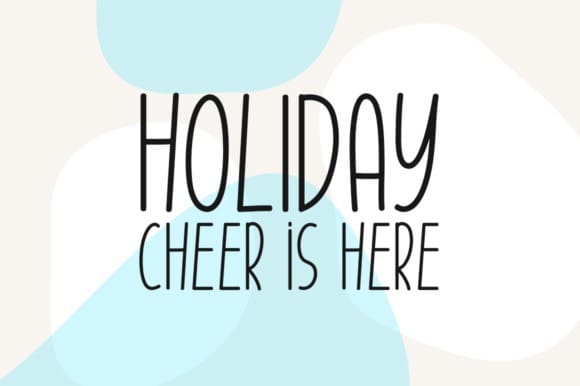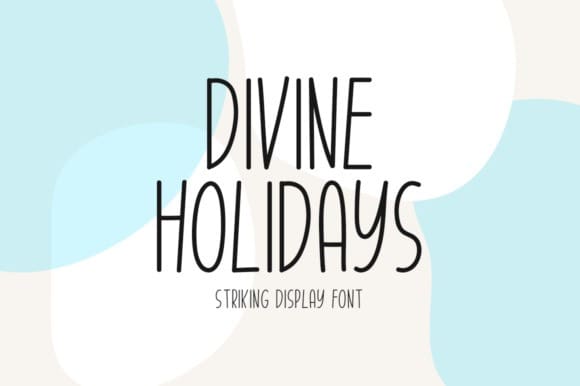
Divine Holidays Font
Divine Holidays Font is a striking and simple-lettered display font. It can easily be matched to an incredibly large set of projects, so add it to your creative ideas and notice how it makes them stand out!